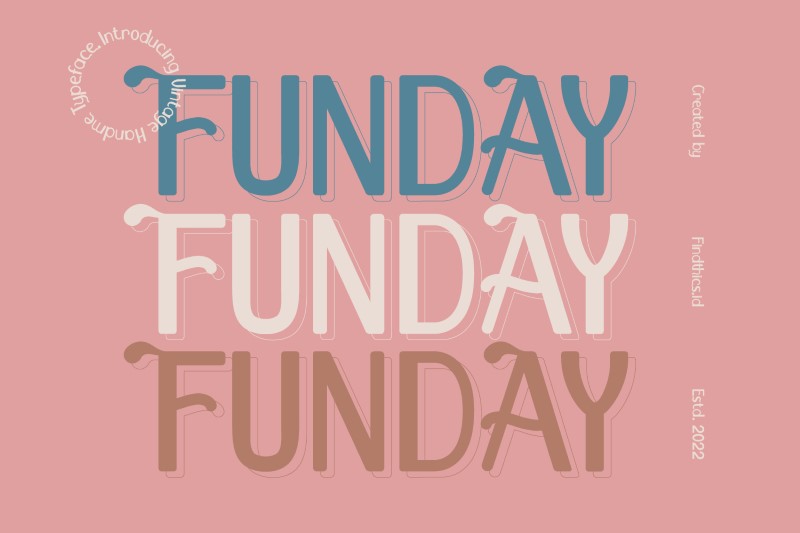
Funday Font
Designed by Findthics.id
About Funday
Introducing Funday Font.
Funday is a display sans serif font. Create from our talented font designer. The design of typeface will make your design more beautiful and inspiring. This font will suitable for any project, like branding, print template, logo and etc.